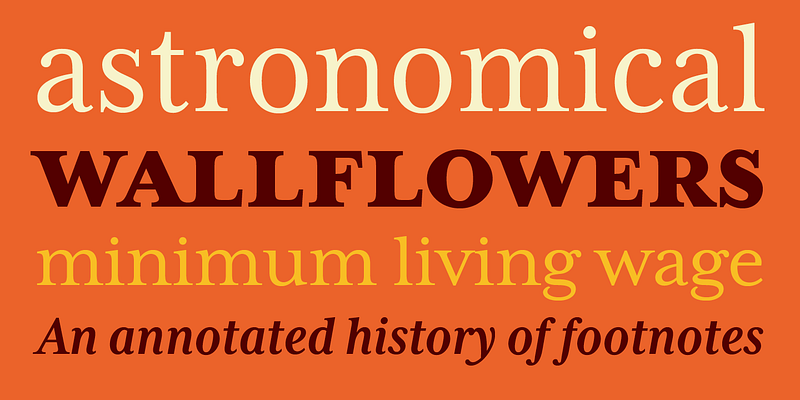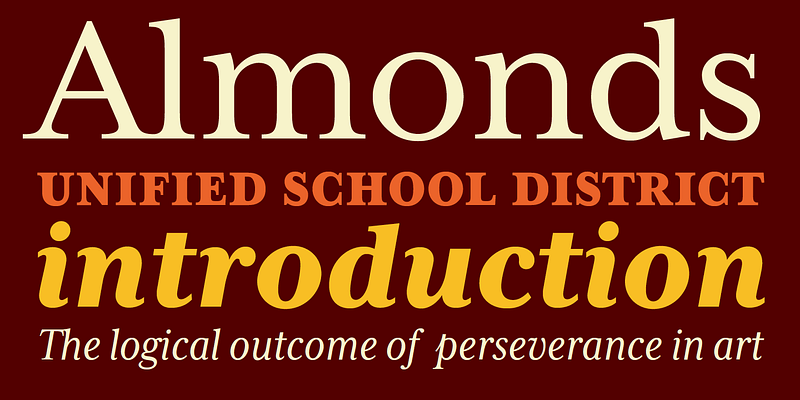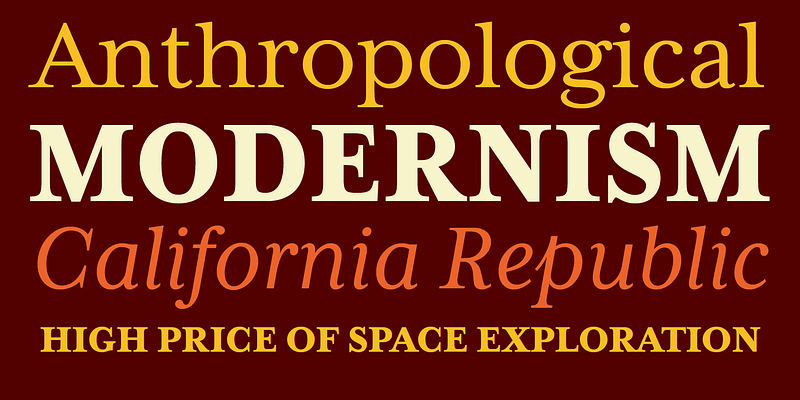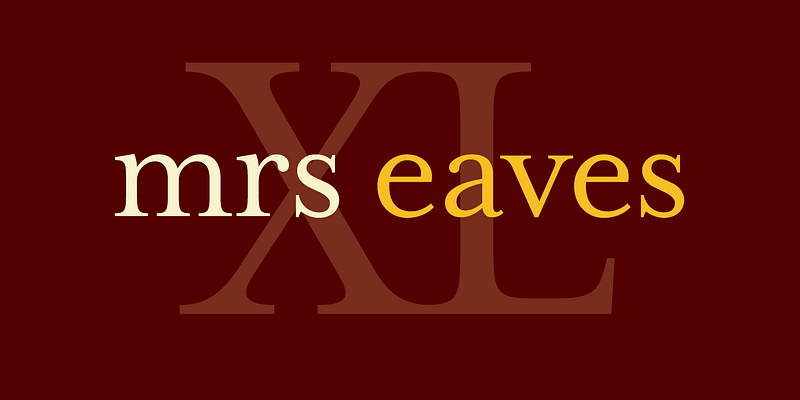
One area where the original Mrs Eaves seems less comfortable is in the setting of long readerly texts, particularly in environments such as the interiors of books, magazines, and newspapers. It seems to handle long texts well only if there is ample space. In such cases its wide proportions provide a luxurious feel which invites reading. Economy of space was not one of the goals behind the original Mrs Eaves design. With the introduction of Mrs Eaves XL, Licko addresses this issue.
Since Mrs Eaves is one of Emigre’s most popular typefaces, it’s not surprising that over the years we’ve received many suggestions for additions to the family. The predominant top three wishes are: greater space economy; the addition of a bold italic style; and the desire to pair it with a sans design. The XL series answers these requests with a comprehensive set of new fonts including a narrow.
The main distinguishing features of Mrs Eaves XL are its larger x-height with shorter ascenders and descenders and overall tighter spacing. These additional fonts expand the Mrs Eaves family for a larger variety of uses, specifically those requiring space economy. The larger x-height also allows a smaller point size to be used while maintaining readability.
Mrs Eaves XL also has a narrow counterpart to the regular, with a set width of about 92 percent which fulfills even more compact uses. At first, this may not seem particularly narrow, but the goal was to provide an alternative to the regular that would work well as a compact text face while maintaining the full characteristics of the regular, rather than an extreme narrow which would be more suitable for headline use.